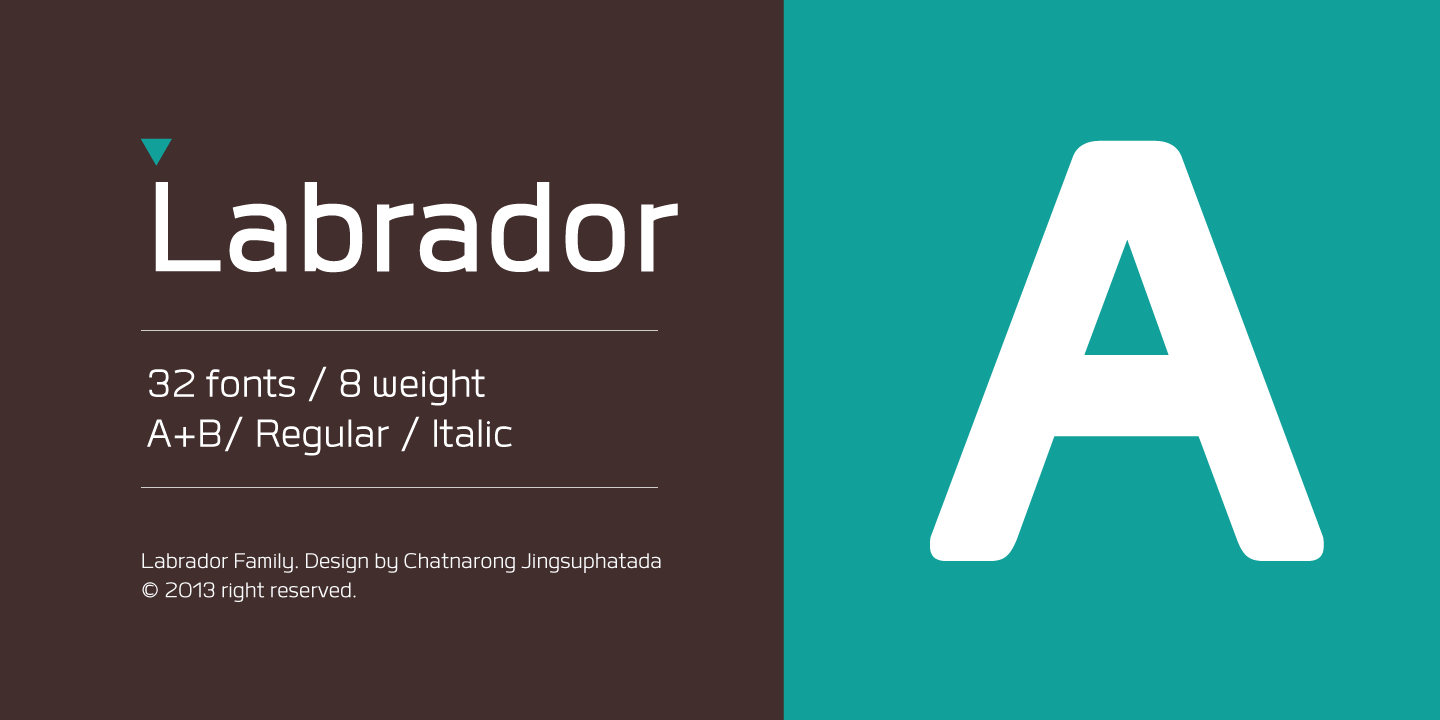
Labrador Font is perfect for pet industry branding, veterinary clinic signage, dog training materials, animal shelter campaigns, pet grooming services, friendly family businesses, and loyal companion-themed projects.
What makes Labrador Font exciting is its friendly loyalty and trustworthy warmth, featuring approachable letterforms that capture the essence of canine companionship while delivering reliable visual appeal and pet-friendly authenticity.
The Labrador Font family includes Light, Regular, Medium, Bold, and Heavy weights, plus friendly variants and companion alternates that enhance the font's loyal character and pet industry possibilities.
Labrador Font Free Download embodies the loyal spirit of faithful companions and the trustworthy nature of devoted friendship through warm typography design. This friendly typeface captures the unwavering loyalty of beloved pets and the comforting presence of faithful companions, creating a trustworthy visual language that speaks to pet lovers and animal enthusiasts who value loyalty, companionship, and the heartwarming appeal of unconditional love. The font's friendly character and loyal appearance make it perfect for pet businesses, animal organizations, and family-oriented brands that want to communicate trust, warmth, and the endearing appeal of faithful companionship.
Pet businesses and animal organizations consistently select Labrador Font for projects that require authentic pet industry credibility and friendly visual appeal. The typeface's trustworthy construction and loyal personality make it exceptionally effective for veterinary practices, pet stores, and animal welfare organizations where trust and companion care are paramount. Each character has been designed with faithful precision to ensure maximum warmth across all pet applications and companion environments.
The companion advantages of Labrador Font extend beyond its pet appeal to include practical functionality for diverse animal care applications. The font maintains excellent readability in family settings while delivering the distinctive character that creates memorable pet experiences and connects with audiences seeking authentic animal companionship. Its comprehensive character set includes pet symbols and companion elements that make it particularly suitable for animal documentation and pet industry communication.
Veterinary clinics, pet stores, and animal welfare organizations frequently choose Labrador Font because of its ability to instantly convey pet industry authenticity and companion sophistication. The typeface's friendly aesthetic helps establish trust in competitive pet markets while appealing to pet owners who value loyal companionship, faithful friendship, and the heartwarming experiences that come from authentic animal bonds and devoted pet relationships.